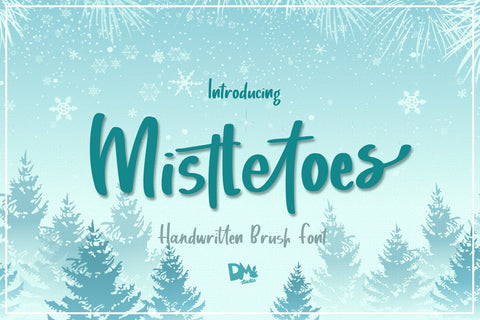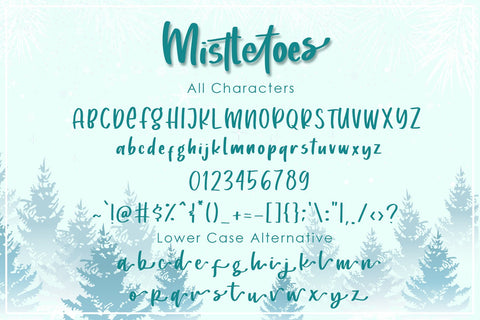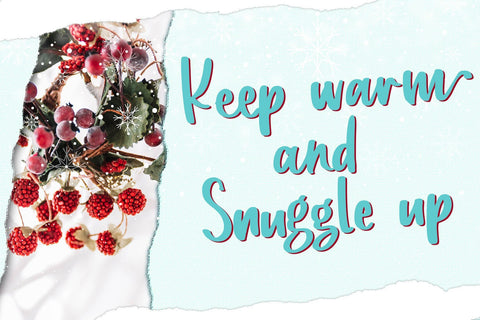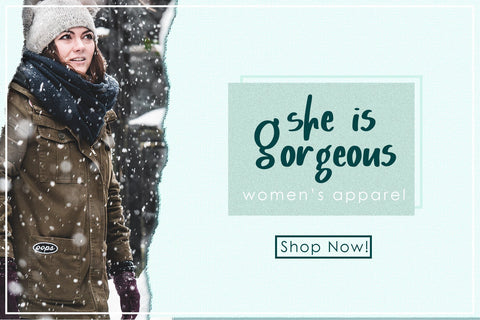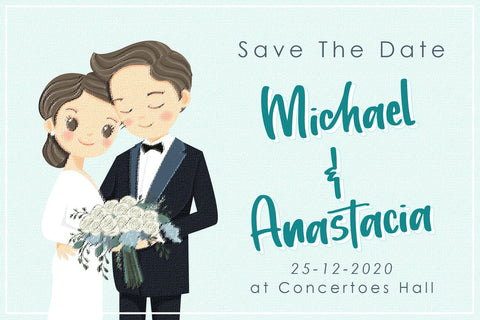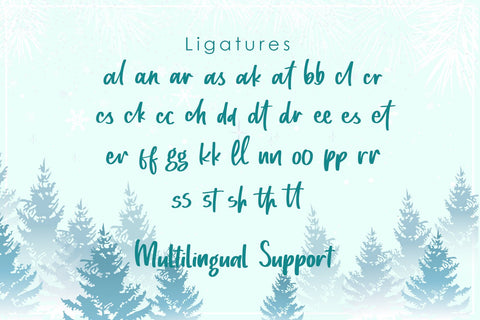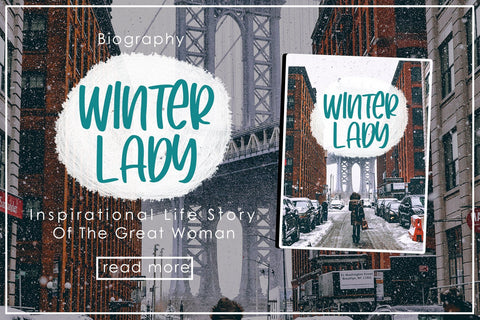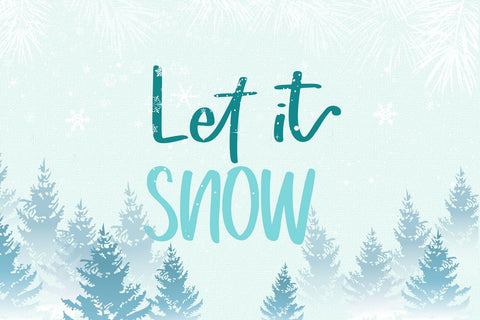
Mistletoes - Handwritten Brush Font
Introducing, Mistletoes, The Handwritten Brush Font!
Celebrate the end year moment by using this gorgeous font for your special design!
It's a girly handwritten brush font, comes with extra alternative characters and ligatures that makes your design more catchy!
Great for party invitation, photo caption, social media post, branding, logo, label, card, and much more!
- Uppercases
- Lowercases
- Symbols, Punctuations
- Extra Alternative Characters & Ligatures